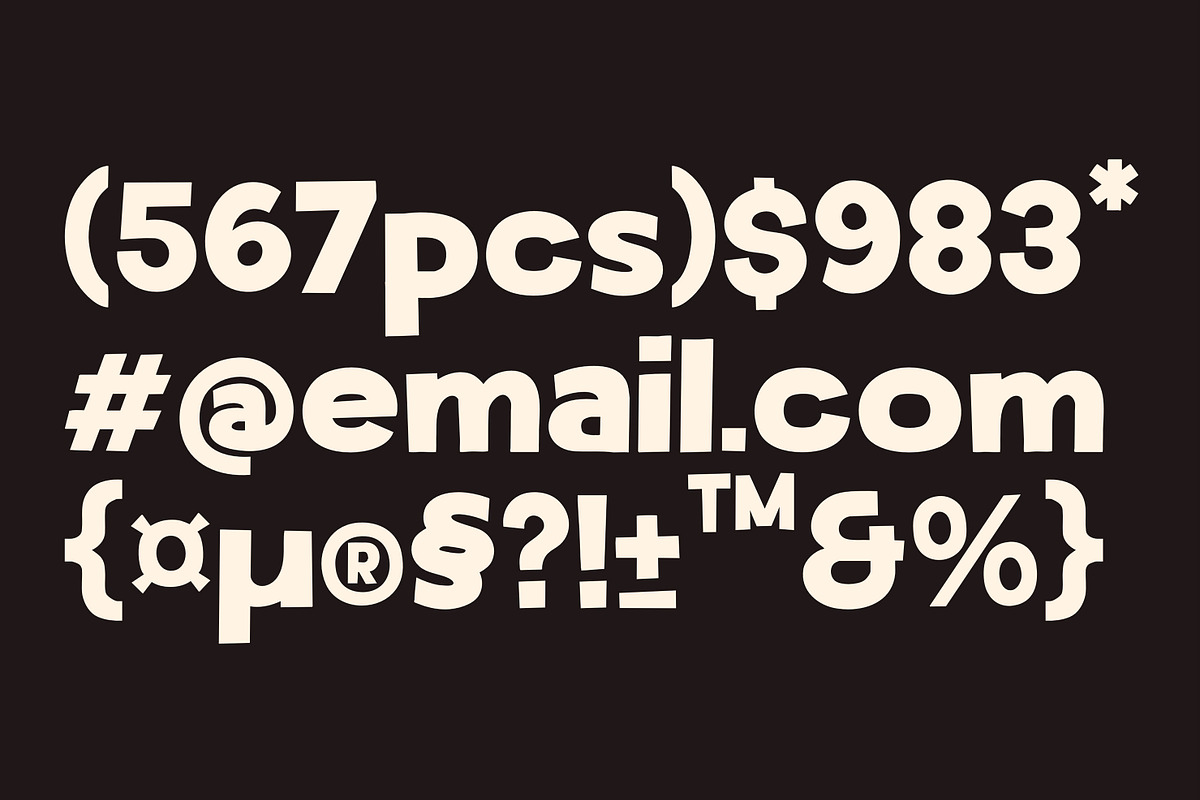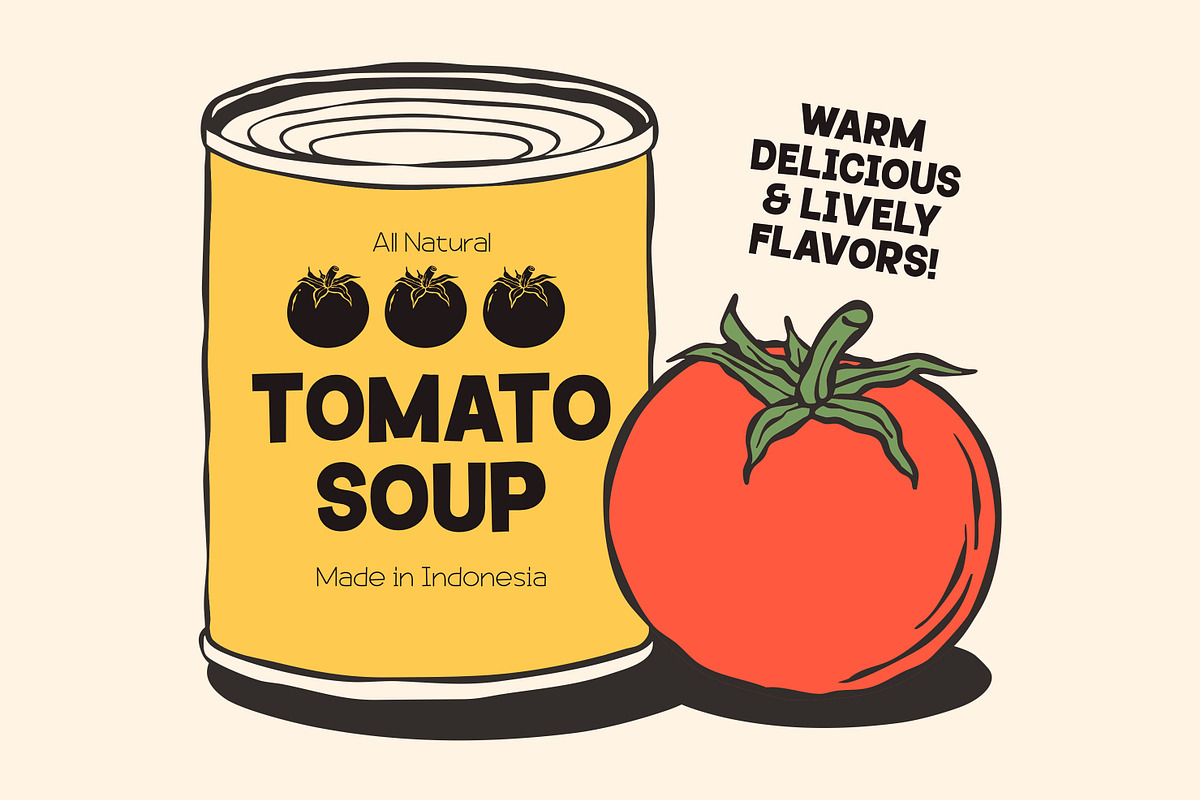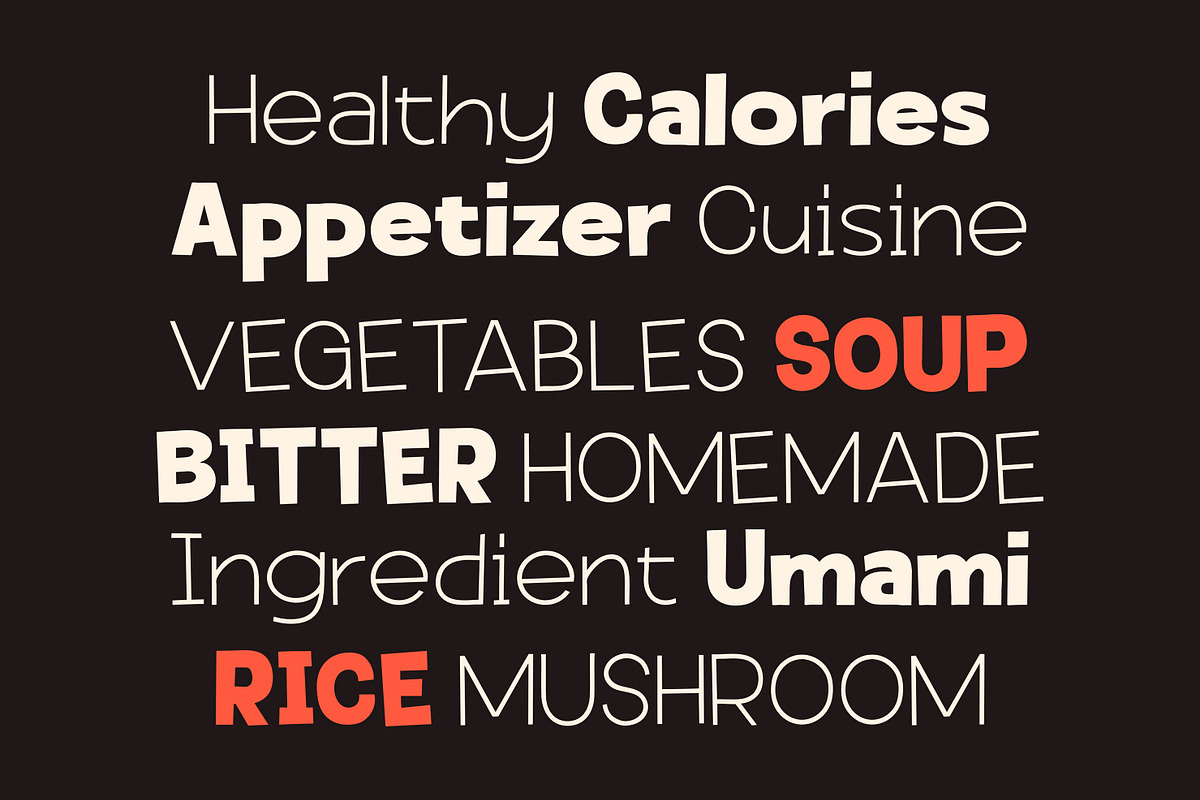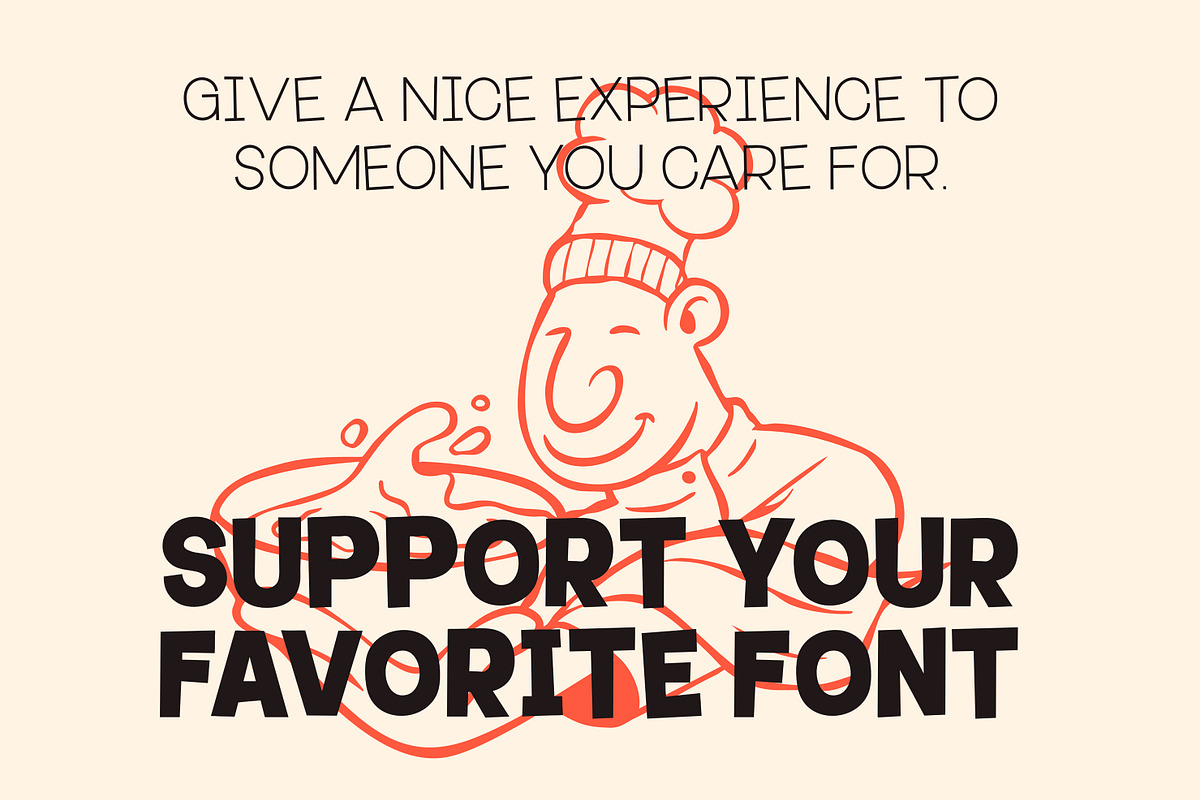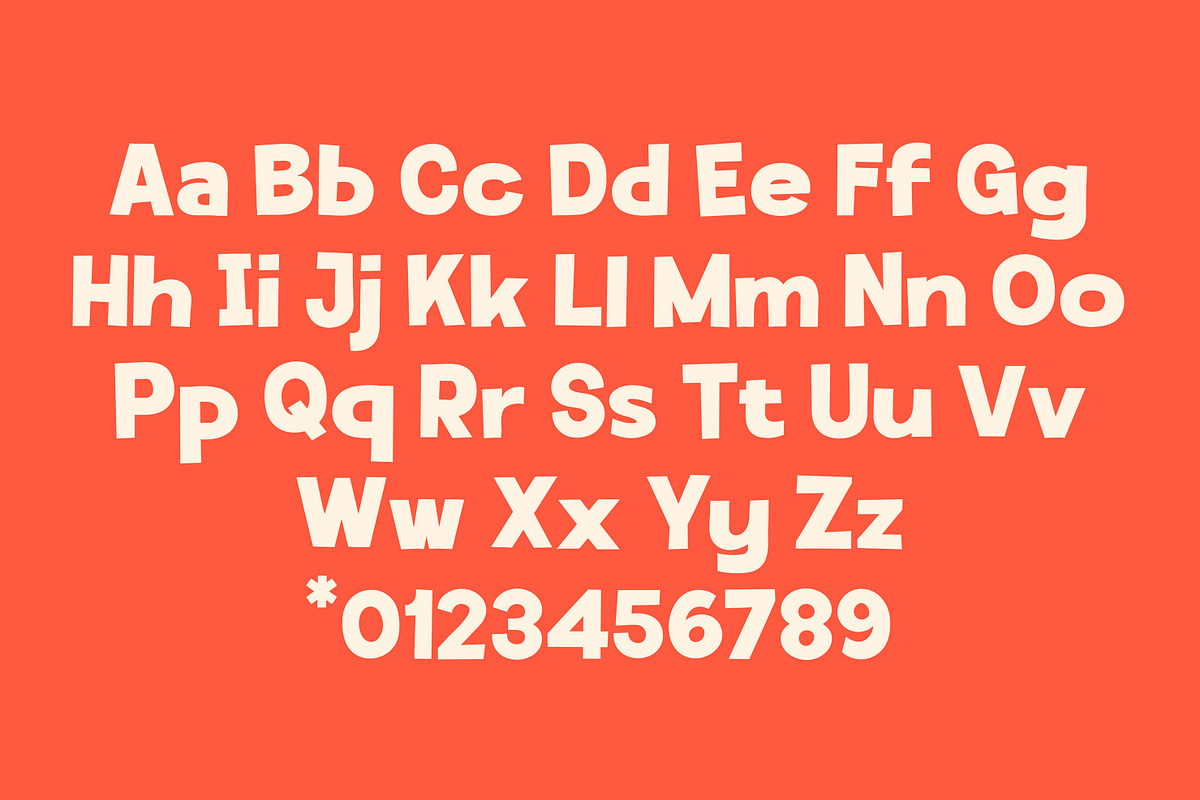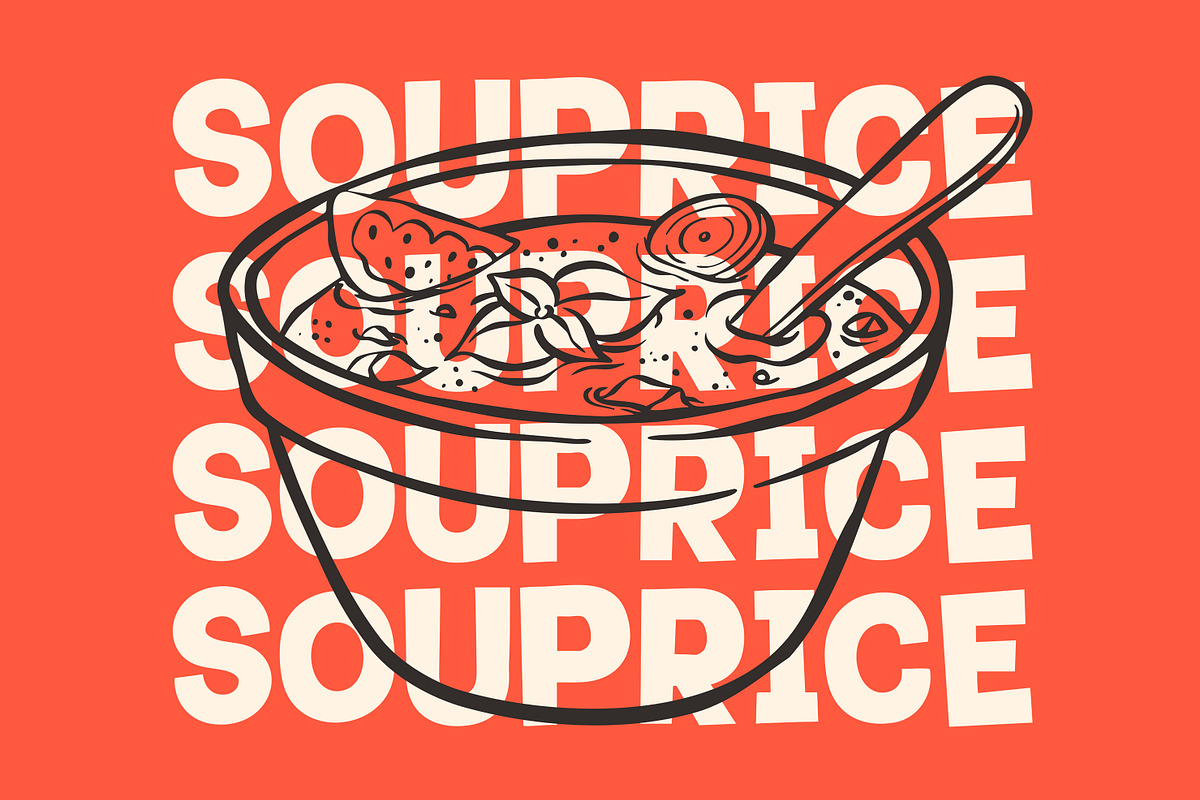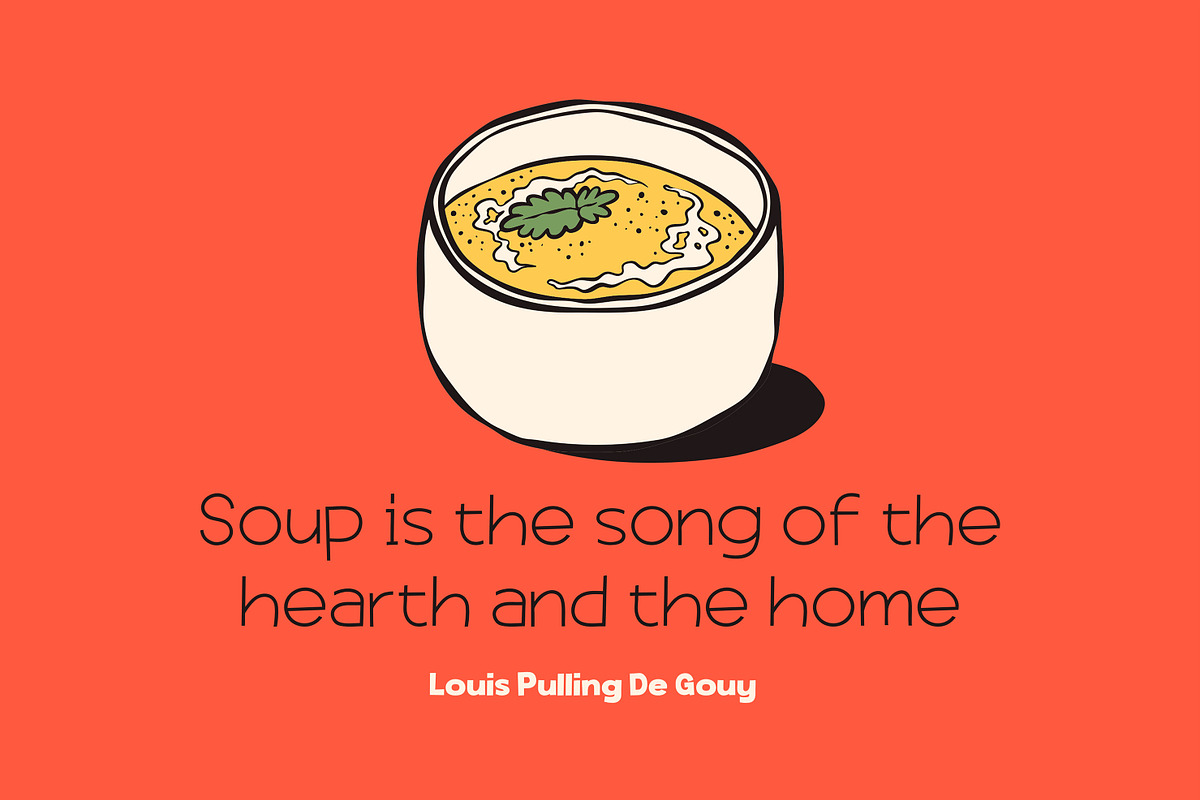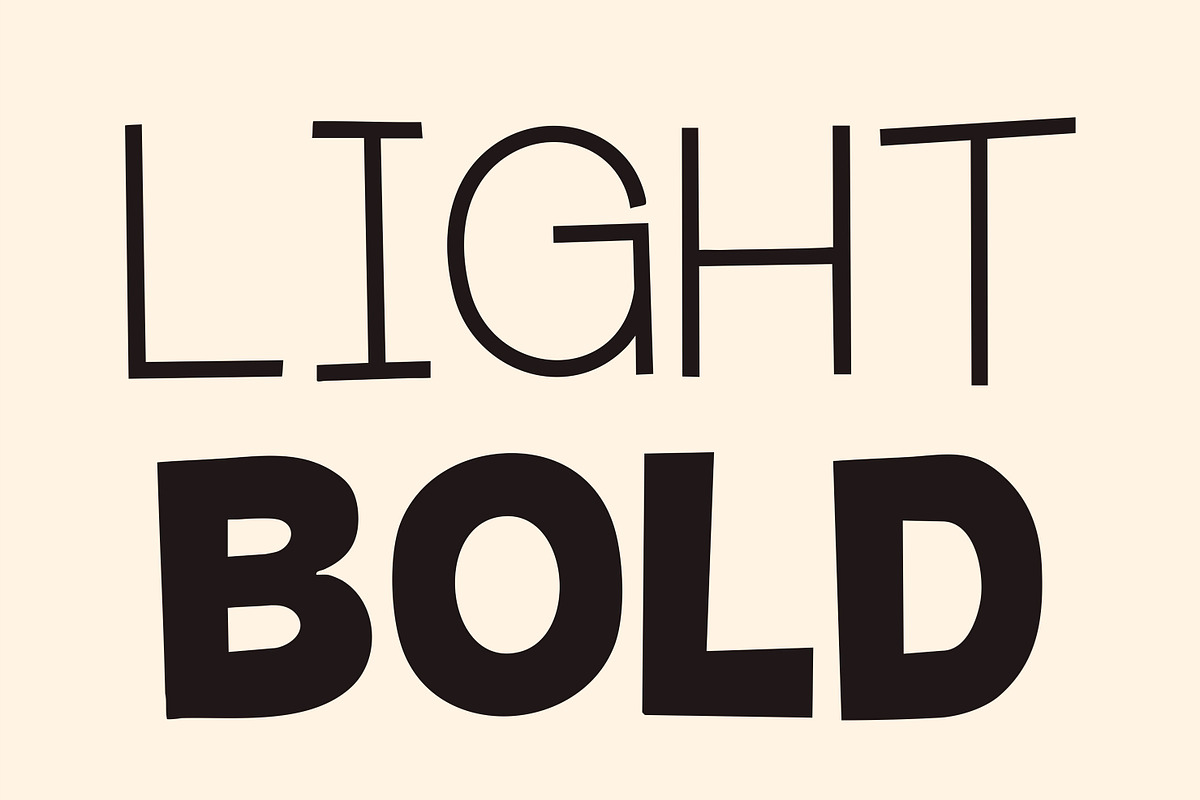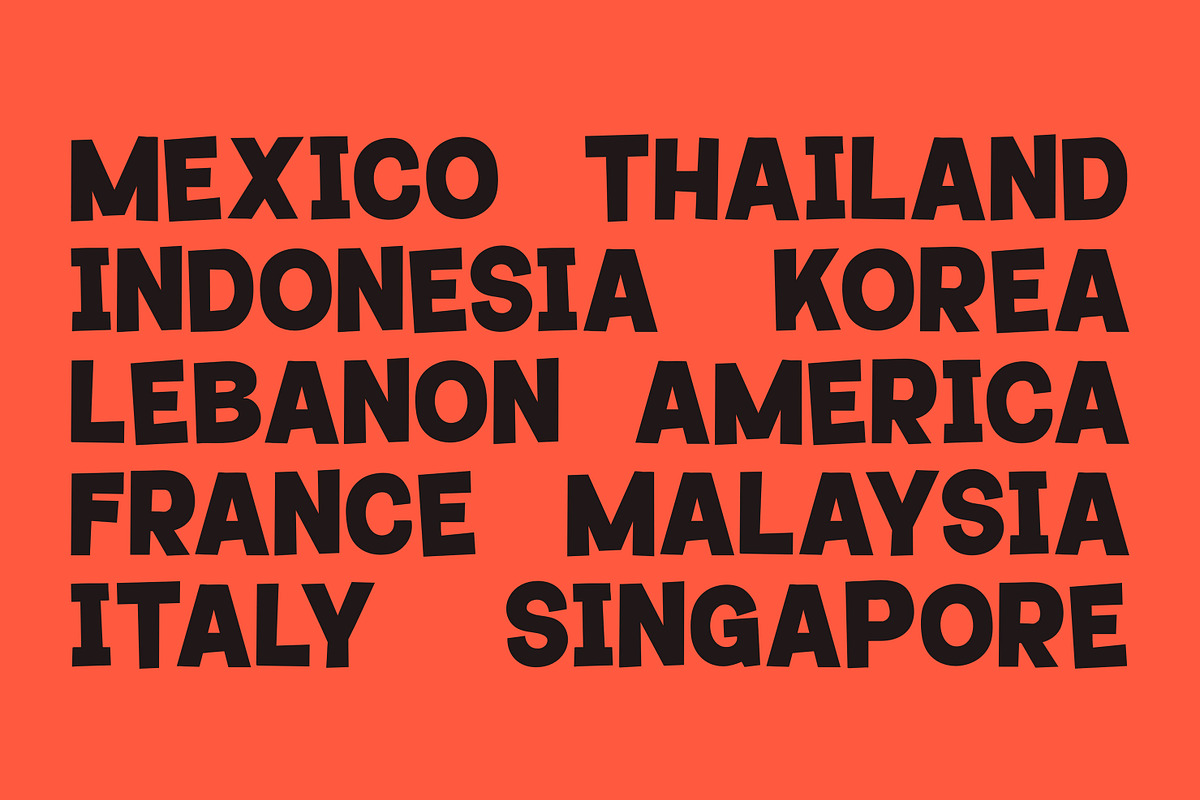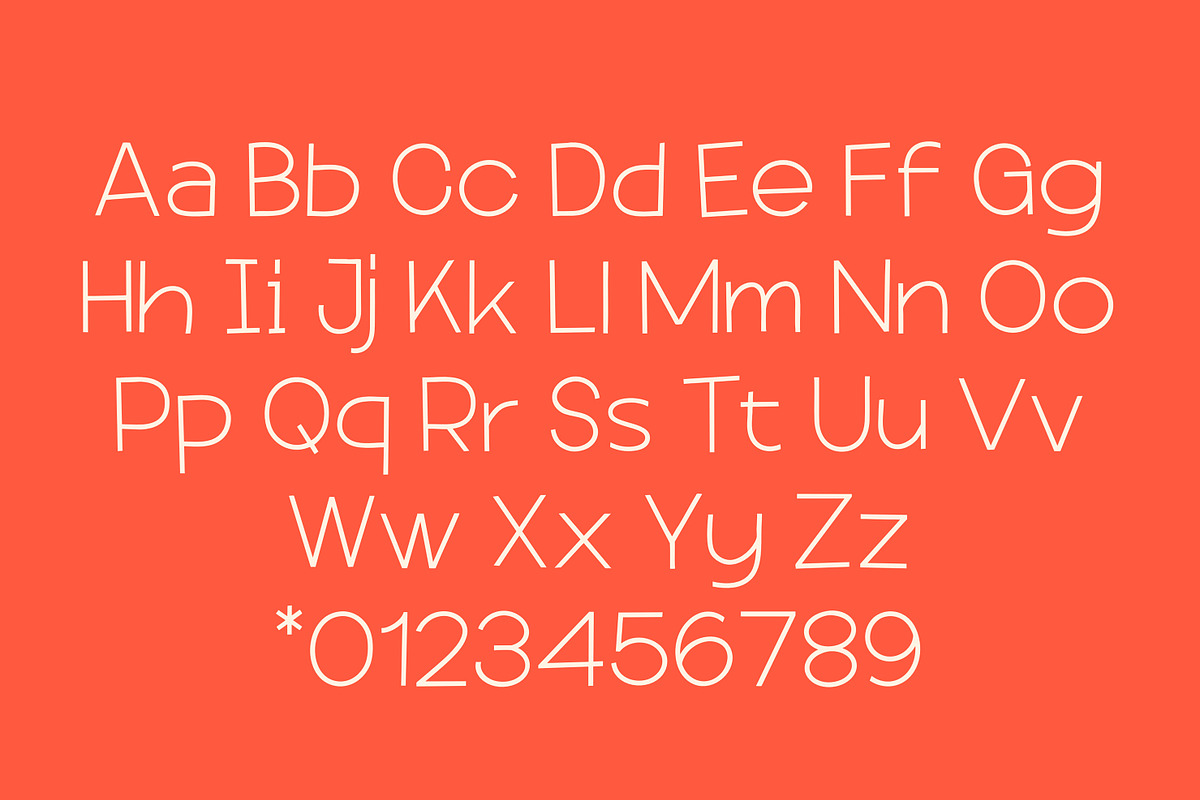
Souprice - Retro Playful Typeface
Souprice – Retro Playful Typeface
Souprice is a retro playful typeface that brings a nostalgic yet fun personality to your designs. Hand-drawn with a touch of organic charm, this font comes in two striking styles: Bold and Light. Whether you're designing posters, packaging, or playful branding, Souprice adds a warm and lively feel with its unique hand-crafted look. Perfect for those who want a touch of retro vibes with a modern twist!
This typeface comes in three distinctive styles to suit a variety of creative needs:
- Souprice Light
- Souprice Bold
This font is perfect for creating nostalgic designs, such as retro/groovy posters, advertisements, and packaging. It's also great for creating unique and eye-catching titles and headings.
Choose Souprice for a Retro Playful Typeface that adds nostalgia and personality to your designs.